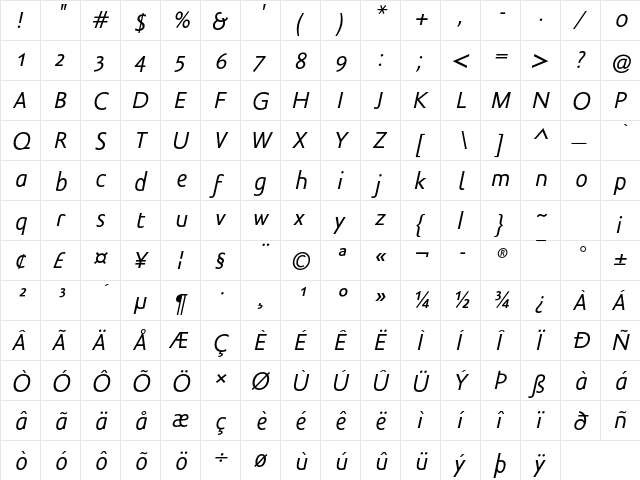
Legal LT Std Book Italic
| Foundry | Linotype GmbH |
| Designer | Hellmut G. Bomm |
Design Context for Legal LT Std Typeface
Legal LT Std is a composed and adaptable typeface that performs quietly and consistently across a wide range of design contexts. The dynamic lean of this cut emphasises speed and emphasis in any layout. Its slender proportions lend an understated elegance to any composition.
Pro Tip: Use Legal LT Std for emphasis, pull quotes, and subheadings where its slanted energy can add rhythm to the layout.